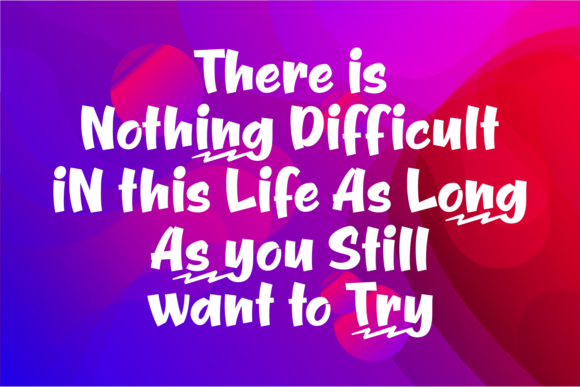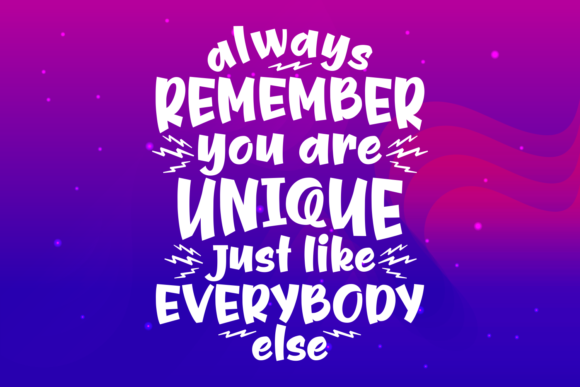
Introduction to Funky Gurls Font
Remember that moment when you’re working on a creative project and you need that one font to take it to the next level? You’re browsing through your favorite font library, scrolling through endless options, and suddenly, it hits you – the perfect font that gives your design the playful touch it needs. For many designers, this moment is a game-changer. And if you’re looking for a font that embodies the perfect blend of fun and whimsy, look no further than the Funky Gurls Font.
This high-quality display font is designed to add a touch of personality to any comic-themed product. With its transparent background and free download option, it’s the perfect design resource for designers who want to experiment with new ideas without breaking the bank.
Key Features of Funky Gurls Font
- High-quality design resource with a fun and vibrant aesthetic, perfect for creative projects.
- Designed with a bold and playful style, making it perfect for use in posters, social media graphics, and other creative applications.
- Includes a range of characters and glyphs, including uppercase and lowercase letters, numbers, and punctuation marks.
Honest Review: Funky Gurls Font
As a designer, I’m always on the lookout for high quality design resources to elevate my creative projects. The Funky Gurls Font caught my attention with its unique and playful style, making it perfect for any design that needs a fun and quirky touch.
- ✨ The font’s unique style is perfect for adding a touch of personality to any design project.
- ⚠️ The font’s design may not be suitable for all types of projects, such as formal or professional designs.
- ⚠️ The font’s unique style may be too playful for some designers’ tastes.
Overall, I’m impressed with the Funky Gurls Font. Its unique style and high quality design make it a valuable resource for any designer looking to add a fun and quirky touch to their creative projects. With its free download format and transparent background, it’s a great addition to any design library.
To get the most out of the Funky Gurls Font, experiment with different font sizes, colors, and styles. Combine the Funky Gurls Font with other design elements, such as graphics and images, to create a unique and eye-catching design. The Funky Gurls Font is perfect for creating bold and playful titles and headings.
The Funky Gurls Font is ideal for creating titles and headings for social media graphics, posters, and flyers. It’s also perfect for creating bold and playful text for blog posts and articles. With its high-quality design and transparent background, the Funky Gurls Font is a valuable design resource for any creative project.